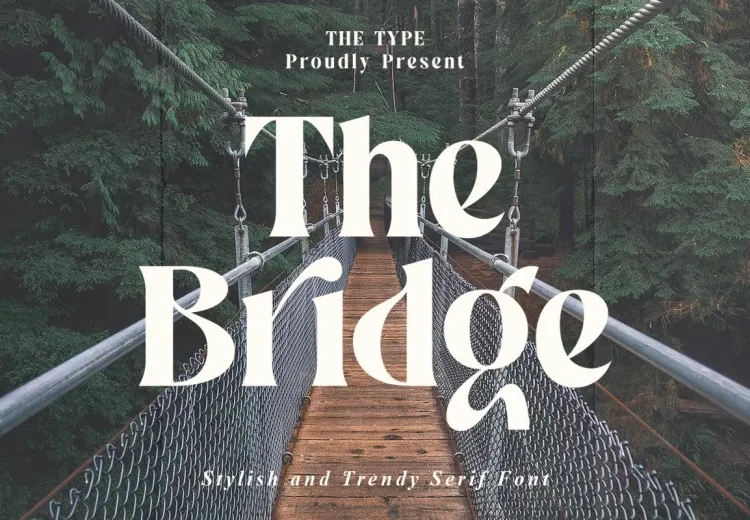
The Bridge Font
The Bridge is a modern serif font that blends stylish contemporary elements with classic serif design. It offers a unique combination of modern flair and timeless sophistication, making it ideal for a variety of design needs.
Key Features of The Bridge:
• Modern & Classic Blend: Merges stylish modern serif elements with traditional serif characteristics for a distinctive look.
• Expressive Alternatives: Includes alternative characters and ligatures to add playful elements and modernity to your designs.
• Versatile Use: Perfect for both text and display use, enhancing readability and visual interest.
Ideal Uses for The Bridge:
• Text and Headlines: Adds character to text-heavy projects while maintaining elegance and readability.
• Design Projects: Experiment with alternatives and ligatures to create impactful and expressive designs.
• Branding and Advertising: Ideal for logos, branding materials, and advertising where a touch of modernity and tradition is desired.